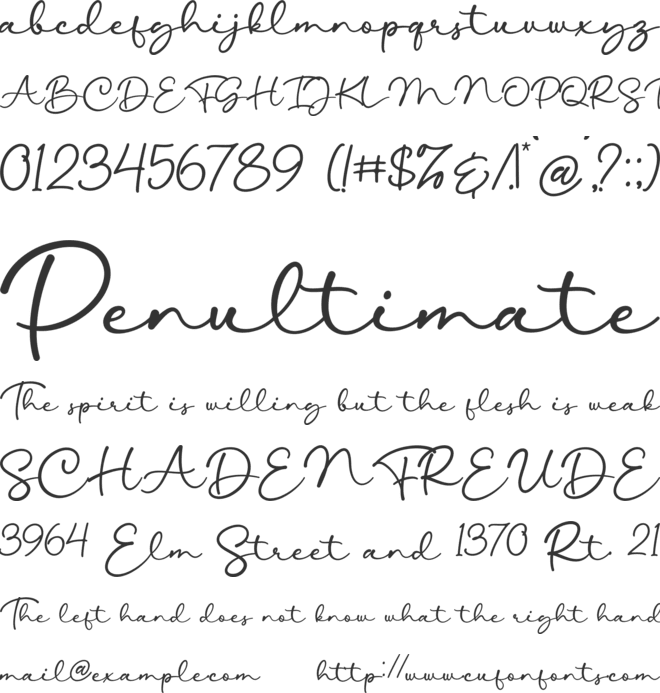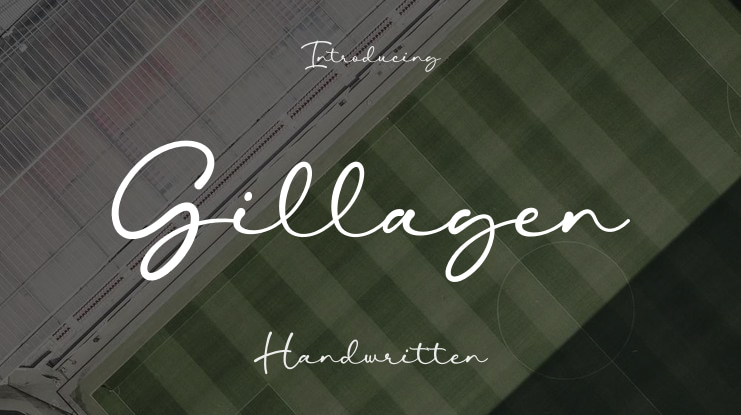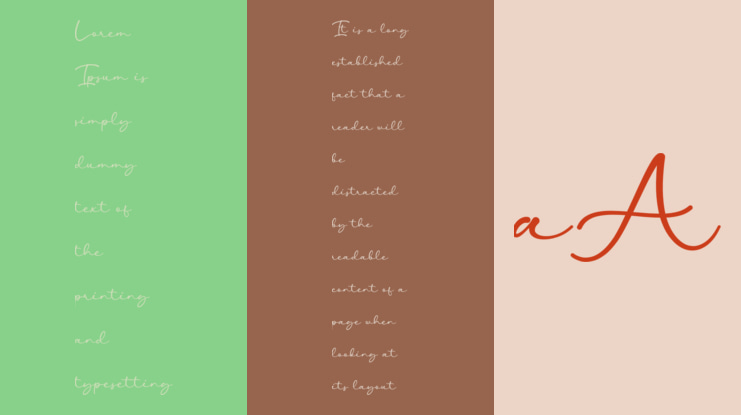
Gillagen Font
Bery Arisandi , Basnistudio
INTRODUCING Gillagen Script Font
Gillagen is a Script Font that adds a elegant, versatile touch to everything from branding and social media to invitations and packaging.
Gillagen font preview